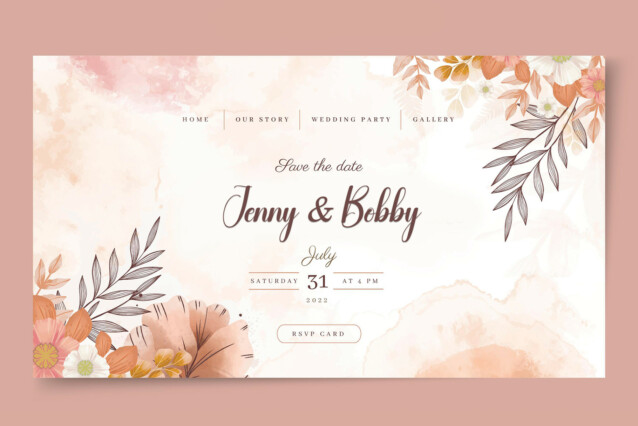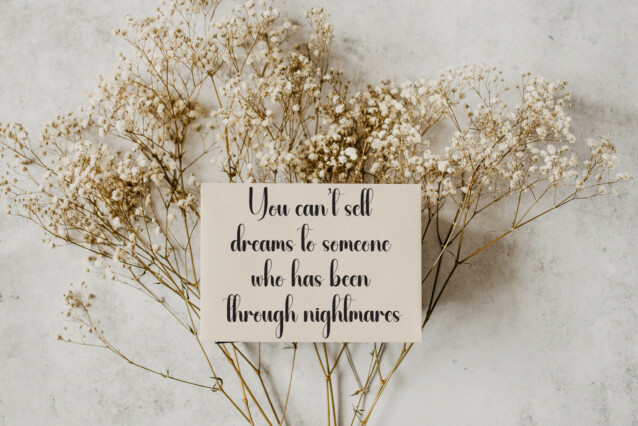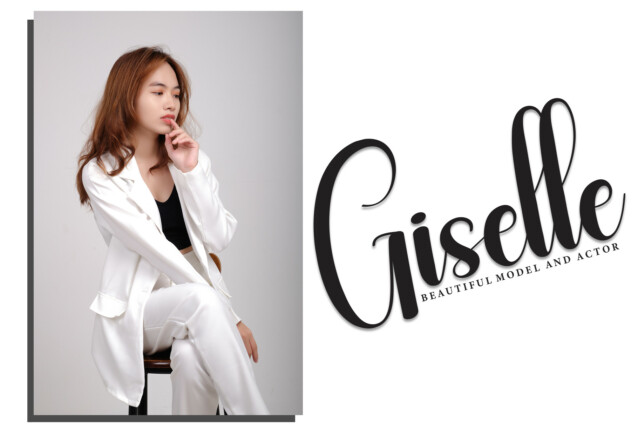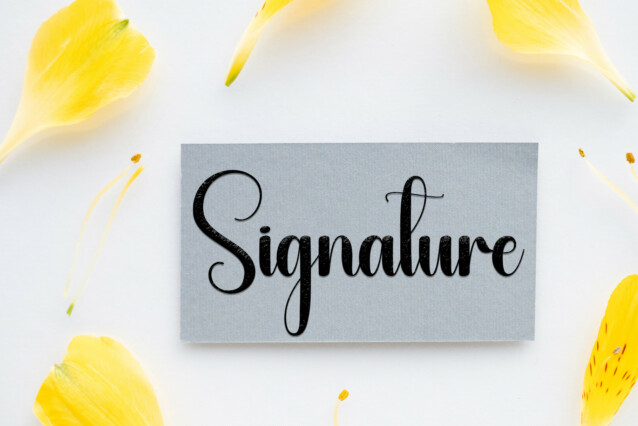
Seamstress Script Font
Seamstress Script Font is a sweet and friendly handwritten display font. Cute and fun, this font is ideal for writing wedding invitations, cards, or any other design that might need a playful touch!